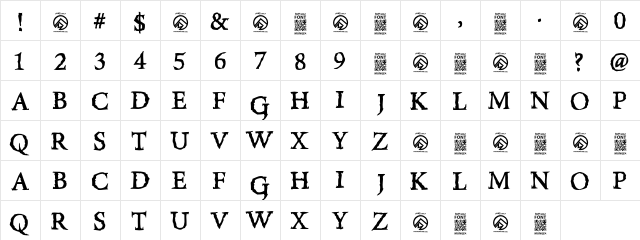
Rise Inside Regular
Design Context for Rise Inside Typeface
Rise Inside takes a measured approach to typography — its balanced proportions and neutral character make it a reliable workhorse for both digital and print work.